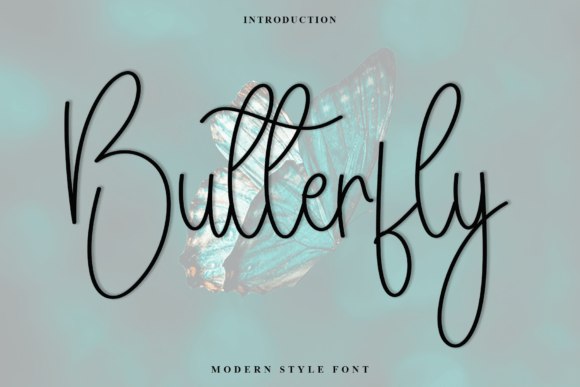
The Perfect Touch of Whimsy: Unveiling the Butterfly Font
As a designer, there’s nothing quite like the thrill of bringing a new idea to life. You’re brainstorming, sketching, and experimenting until – suddenly – that perfect combination of colors, textures, and typography clicks into place. For many creatives, this moment of inspiration is what makes all the hard work worth it.
When it comes to adding that special something to your designs, few fonts are as captivating as the Butterfly Font. This lovely, handwritten font is a timeless choice for creating eye-catching logos, branding, and quotes that truly come alive. With every letter boasting a unique and beautiful touch, the Butterfly Font is a valuable addition to any designer’s toolkit.
Key Features of Butterfly Font
- Unique Characteristics: Butterfly Font features a delicate, hand-drawn design with intricate details and subtle flair, making it perfect for adding a touch of elegance and sophistication to any design project.
Designer Review: Butterfly Font
Overall, I’d say Butterfly Font is a charming addition to any design project. ✨ The font’s whimsical feel makes it perfect for projects that require a touch of elegance and sophistication. The letterforms are intricately designed, with subtle curves and flourishes that give the font a unique personality.
- The font’s flexibility is impressive, working well in a range of sizes and resolutions.
- The font’s character set is extensive, making it suitable for a variety of languages and use cases.
- The font’s subtle texture and nuances add depth and visual interest to text.
However, there are some limitations to consider: ⚠️ The font may be too ornate for projects that require a more straightforward or minimalist aesthetic. Additionally, the font’s complexity may make it difficult to customize or edit in certain design software.
Overall, I’d give Butterfly Font 4 out of 5 stars. While it has its limitations, the font’s unique charm and versatility make it a great choice for designers looking to add some personality to their projects. With a bit of restraint and creativity, Butterfly Font can be a real showstopper.
Tip: Use the Butterfly Font for creative and whimsical projects, such as invitations, flyers, and social media graphics.
Tip: Use the Butterfly Font for illustrations, graphics, and other creative projects where a playful font is needed.
Tip: Use the Butterfly Font for presentations, reports, and other documents where a unique font is desired.
The Butterfly Font is ideal for:
- Children’s books and educational materials.
- Whimsical and playful projects.